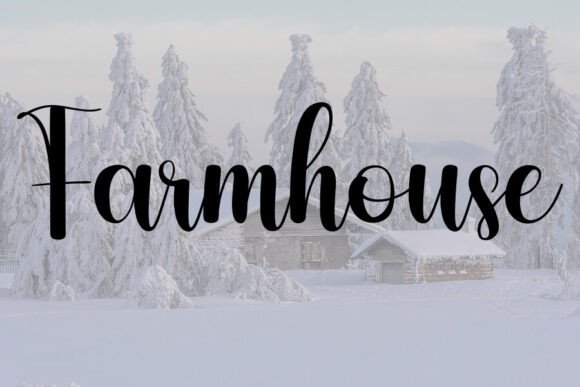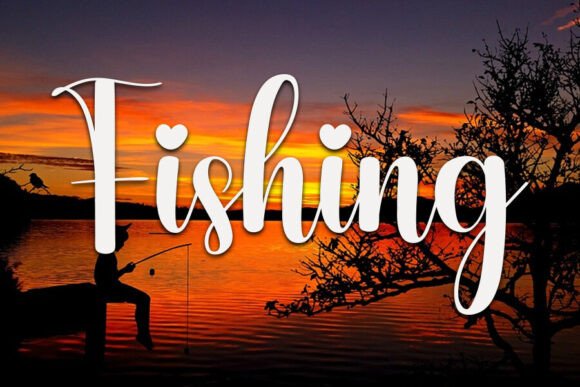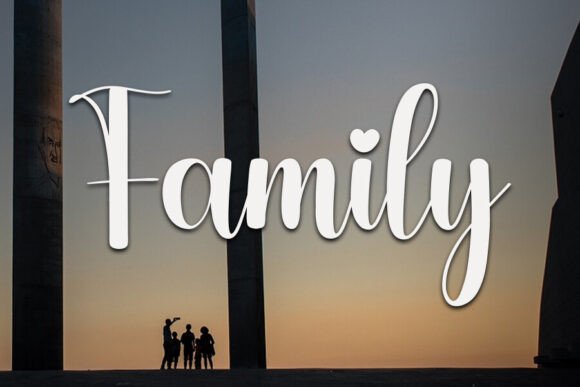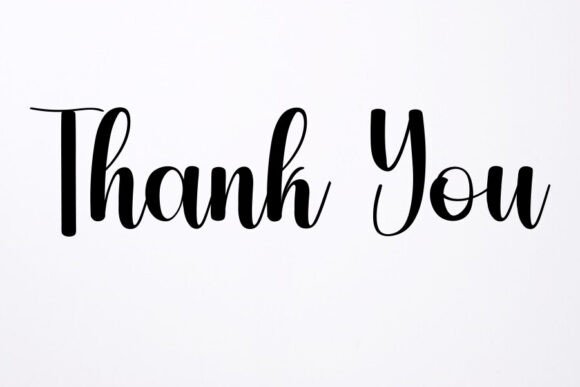
Introducing Calendar Font: A Simple Handwritten Font for Your Creative Projects
Are you looking for a font that can add a personal touch to your designs? Look no further than Calendar Font, a simple handwritten font that is versatile and easy to use. With its natural and effortless feel, Calendar Font is perfect for a wide range of applications, from greeting cards to headlines, and is guaranteed to make your next project stand out.
What is Calendar Font?
Calendar Font is a beautifully crafted handwritten font that is designed to be simple, yet effective. Its unique and elegant style makes it perfect for adding a personal touch to your designs, whether you’re working on a greeting card, a poster, or a website. With its clean and clear lines, Calendar Font is easy to read and understand, making it perfect for use in a variety of contexts.
Key Features of Calendar Font
- Simple and Handwritten: Calendar Font has a simple and handwritten style that gives it a natural and effortless feel.
- Versatile: With its wide range of applications, Calendar Font is perfect for use in a variety of contexts, from greeting cards to headlines.
- Elegant: The font’s unique and elegant style makes it perfect for adding a personal touch to your designs.
- Easy to Read: With its clean and clear lines, Calendar Font is easy to read and understand, making it perfect for use in a variety of contexts.
Uses of Calendar Font
Calendar Font is a versatile font that can be used in a wide range of applications, including:
- Greeting Cards: Add a personal touch to your greeting cards with Calendar Font, perfect for birthdays, weddings, and other special occasions.
- Headlines: Use Calendar Font to add a touch of elegance to your headlines, perfect for posters, flyers, and other marketing materials.
- Websites: Add a personal touch to your website with Calendar Font, perfect for use in headings, titles, and other website elements.
- Social Media: Use Calendar Font to add a touch of elegance to your social media posts, perfect for use in graphics, images, and other visual elements.
Benefits of Using Calendar Font
There are many benefits to using Calendar Font in your designs, including:
- Unique and Personal: Calendar Font adds a unique and personal touch to your designs, setting them apart from others.
- Easy to Use: With its simple and clean lines, Calendar Font is easy to use and works well in a variety of contexts.
- Versatile: Calendar Font can be used in a wide range of applications, making it a great addition to any designer’s toolkit.
- High-Quality: Calendar Font is a high-quality font that is designed to produce crisp and clear results, even at small sizes.
Tips for Using Calendar Font
Here are a few tips for using Calendar Font in your designs:
- Use it Sparingly: While Calendar Font is a beautiful font, it can be overwhelming if used too much. Use it sparingly to add a touch of elegance to your designs.
- Pair it with Other Fonts: Calendar Font pairs well with other fonts, so don’t be afraid to experiment with different combinations.
- Experiment with Sizes: Calendar Font works well at a variety of sizes, so experiment with different sizes to find the one that works best for your design.
In conclusion, Calendar Font is a simple handwritten font that is perfect for adding a personal touch to your designs. With its natural and effortless feel, Calendar Font is versatile and easy to use, making it a great addition to any designer’s toolkit. Whether you’re working on a greeting card, a poster, or a website, Calendar Font is guaranteed to make your next project stand out.